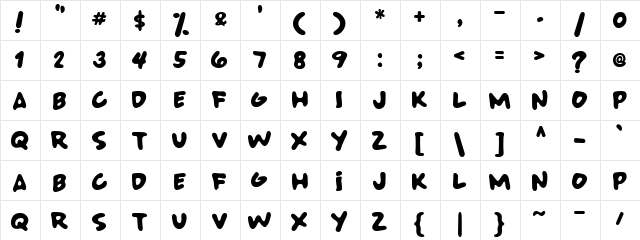
SUPER BAD FONT Regular
Design Context for SUPER BAD FONT Typeface
SUPER BAD FONT is a composed and adaptable typeface that performs quietly and consistently across a wide range of design contexts.